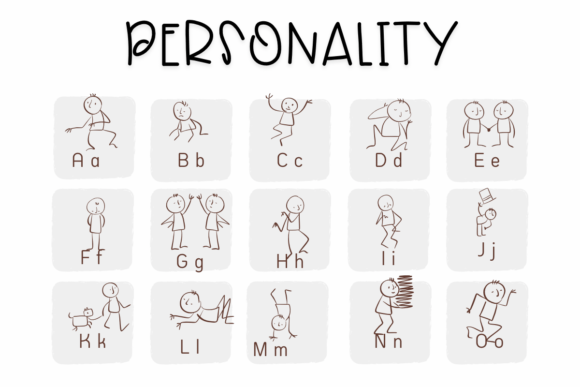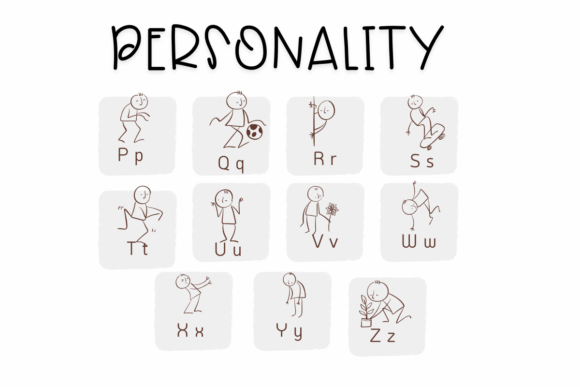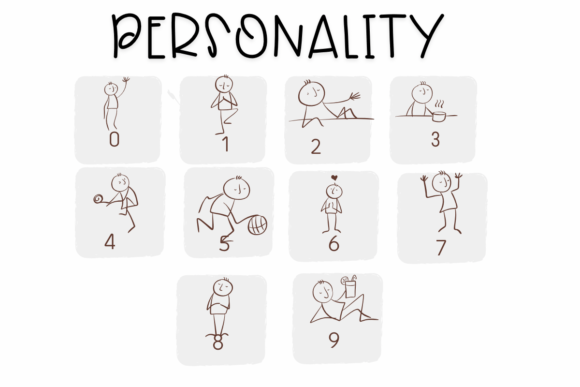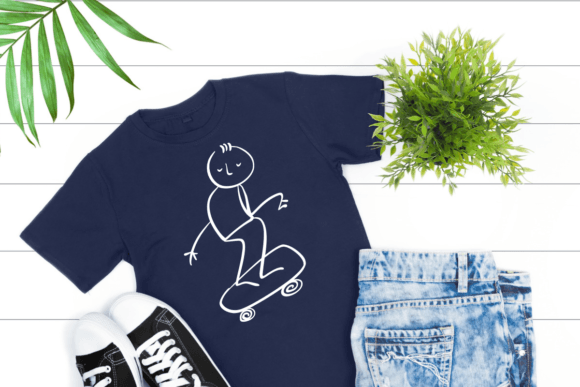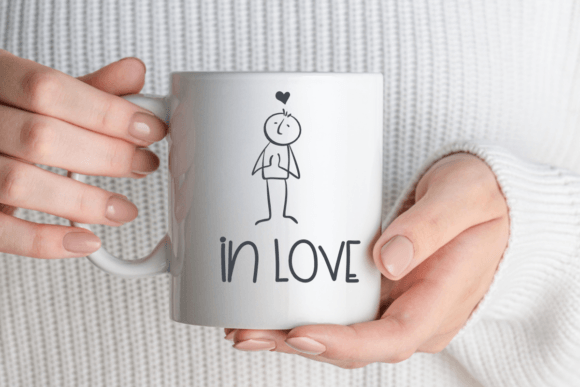
Introduction to Personality Font
Remember that one moment when you stumbled upon the perfect design element for your creative project? The one that made everything come together in perfect harmony? For designers, this feeling is priceless. It’s the moment when your vision transforms into a stunning reality, leaving a lasting impression on your audience.
One such design element that can elevate your projects to new heights is the Personality Font – a charming dingbats font that exudes fun and playfulness. This delightful font is perfect for adding a personal touch to your wedding invitations, DIY crafts, decorations, logos, and more.
Key Features of Personality Font
- High-quality design: Personality Font is crafted with attention to detail, ensuring a visually appealing and professional look for any creative project.
- Transparent background: The font comes with a transparent background, allowing for seamless integration with any design or image.
- Resolution: The font is designed at a high resolution (300 DPI), making it suitable for printing and digital use.
- Size: The font family includes a range of weights and styles, from light to bold, allowing for flexibility and customization in your design.
- Unique characteristics: Personality Font features a unique and creative design, making it stand out from other fonts and adding a touch of personality to any project.
Honest Review: Personality Font
I recently stumbled upon the Personality Font, and I must say, it’s been a game-changer for my creative projects. The font is perfect for anyone looking to add a personal touch to their designs. ✨
One of the standout features of this font is its high quality. It’s incredibly detailed and has a unique style that sets it apart from other fonts. The transparent background is also a nice touch, allowing for easy integration into any design. I’ve used it for a range of projects, from logos to social media graphics, and it’s always delivered.
Here are some of the key features that I love about the Personality Font:
- High quality and detailed design
- Unique and personal style
While the Personality Font is a great resource, there are a few limitations to be aware of: ⚠️
- Some letters may not be as stylized as others
- Not all languages are supported
Overall, I’m really impressed with the Personality Font. It’s a great addition to any designer’s toolkit, and I’d highly recommend it for anyone looking to add some personality to their designs. With a little creativity, the possibilities are endless!
Getting the Most Out of Personality Font
Personality Font is a versatile design resource that can be used in a variety of creative projects. To get the most out of it, consider the following tips:
Use a transparent background to make the font more versatile.
Experiment with different font sizes and styles to add visual interest to your design.
Combine Personality Font with other design elements to create a unique and eye-catching design.
Personality Font is commonly used in:
Graphic design projects, such as logos and business cards.
Web design projects, such as websites and landing pages.
Marketing materials, such as brochures and flyers.
How do I ensure the highest quality when using Personality Font?
What is the recommended resolution for printing Personality Font?
For optimal results, we recommend printing Personality Font at a minimum resolution of 300 DPI (dots per inch). This will ensure that the font remains crisp and clear, even at larger sizes. Additionally, make sure to use a high-quality printer and paper to bring out the best in your design.